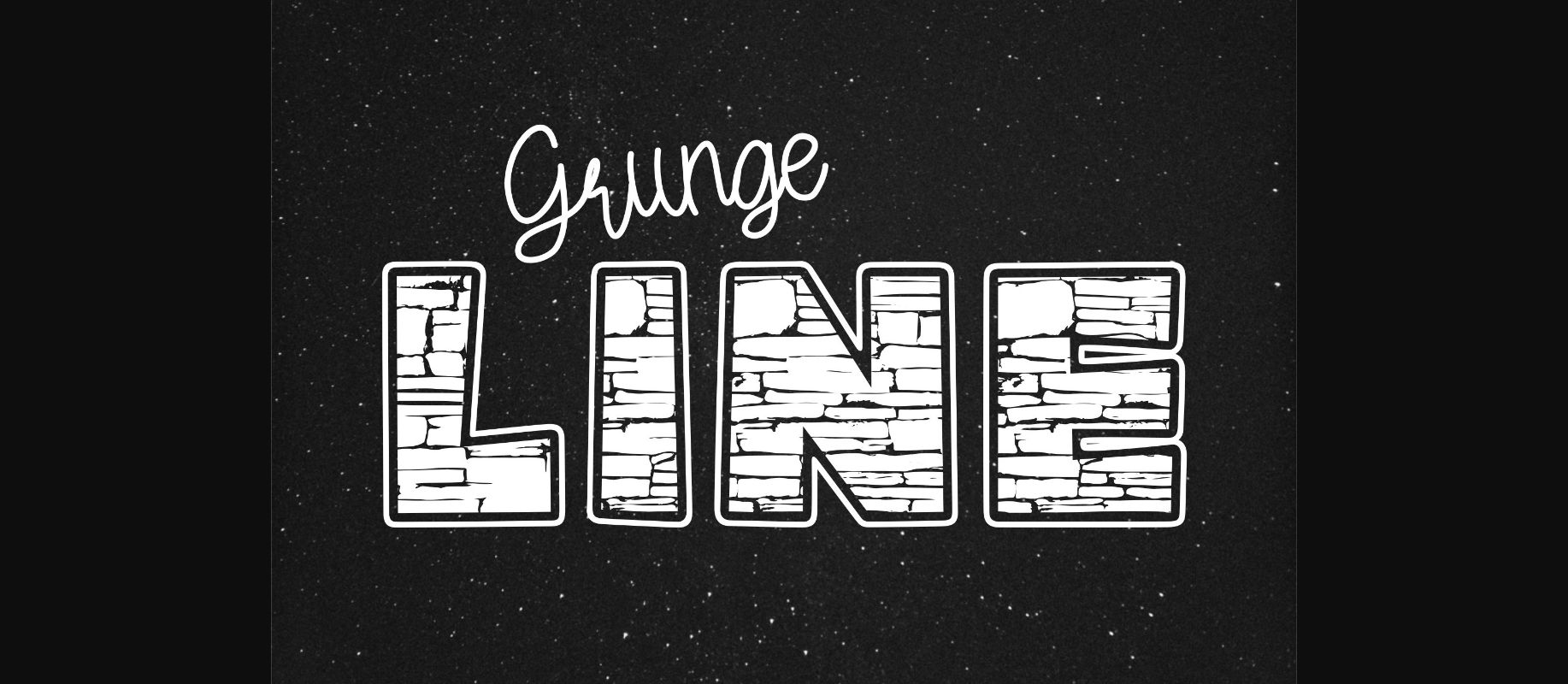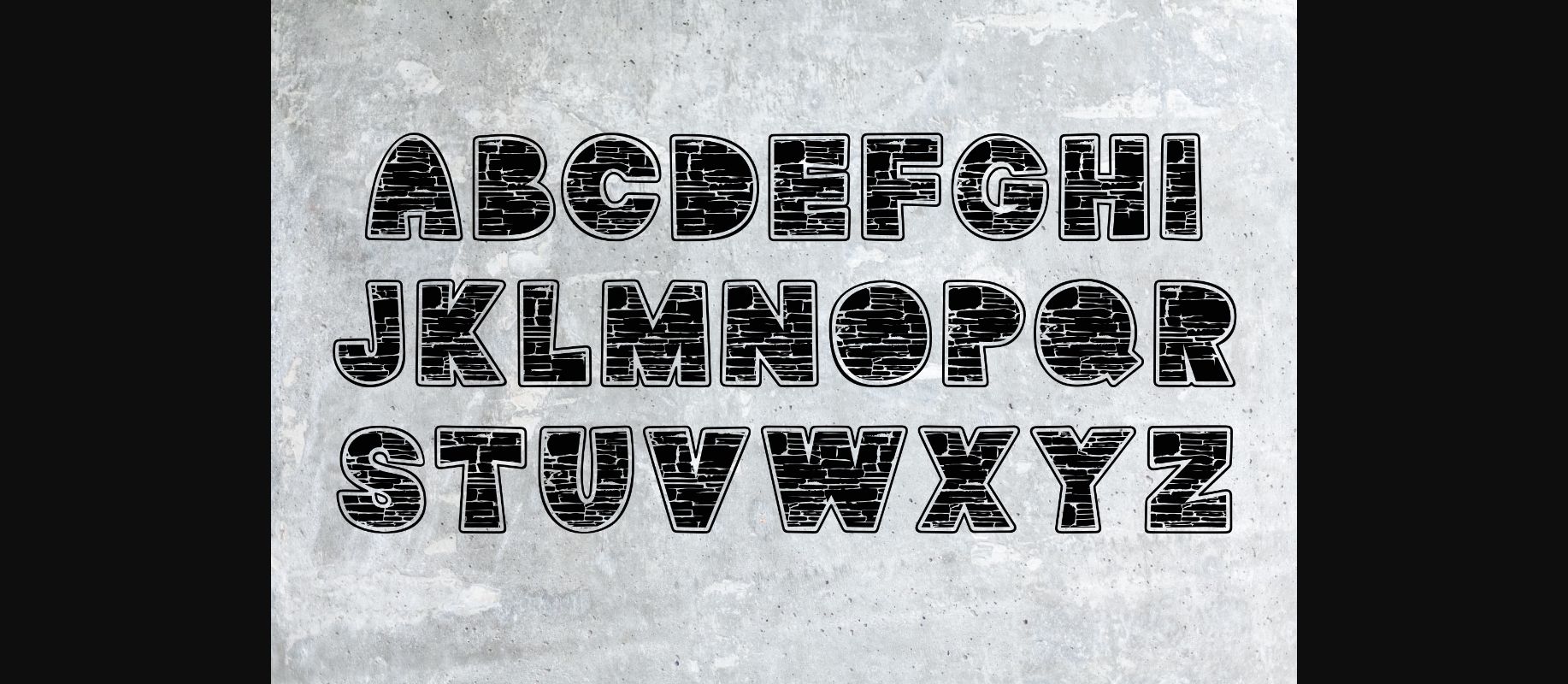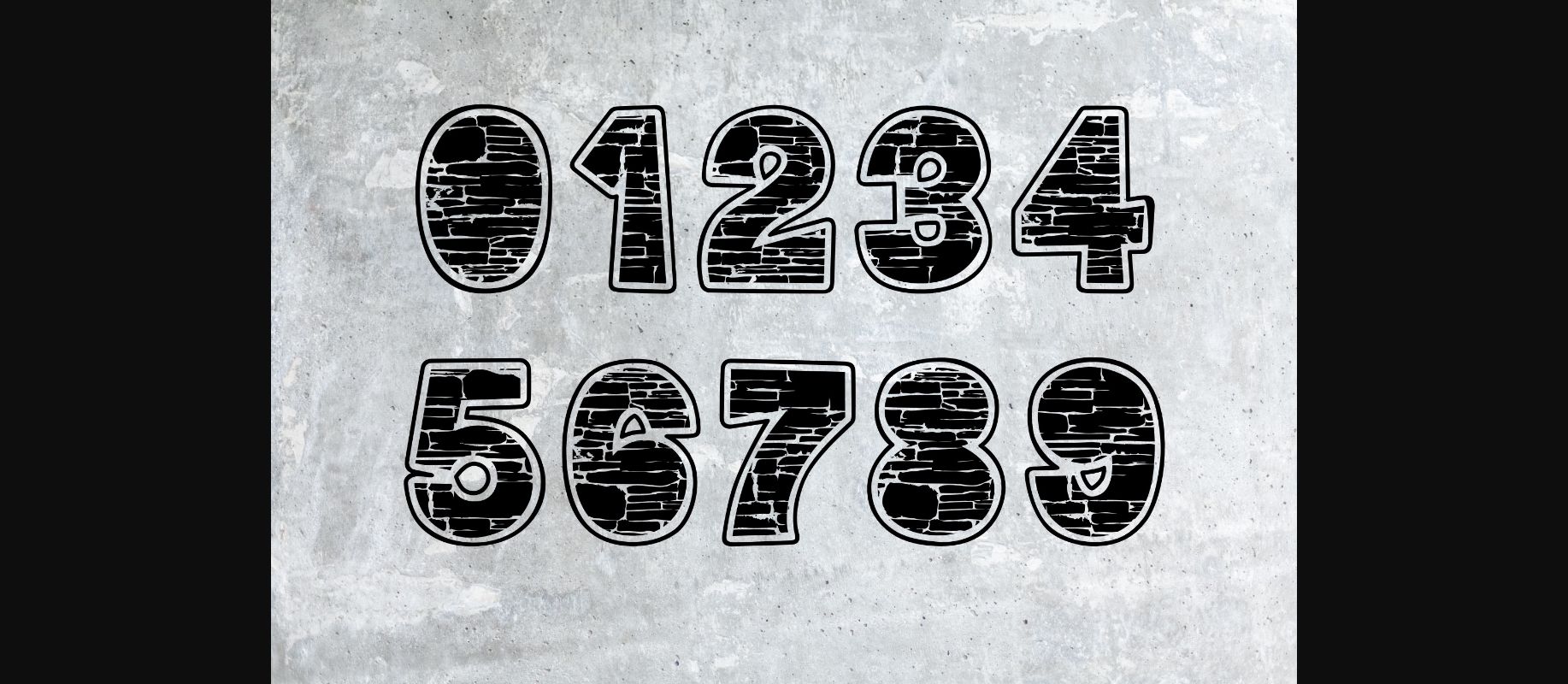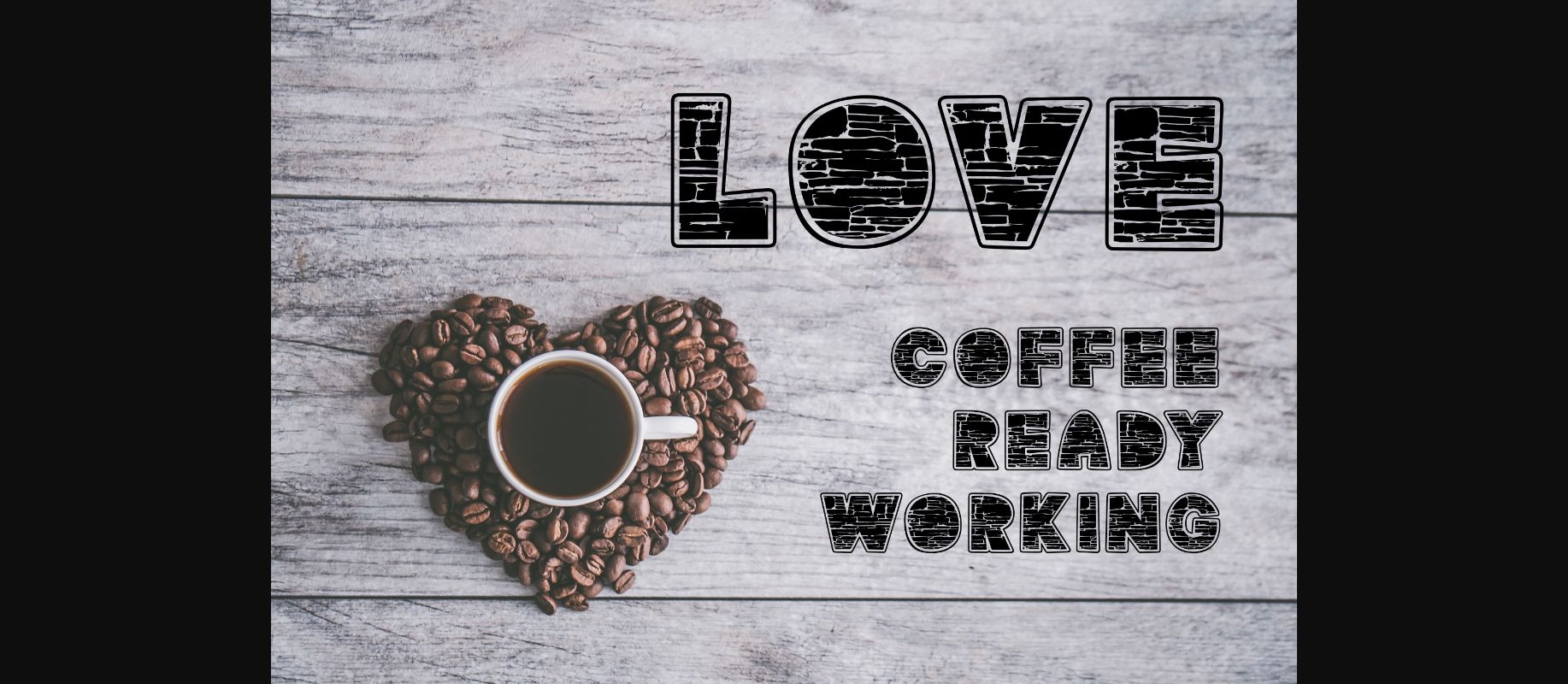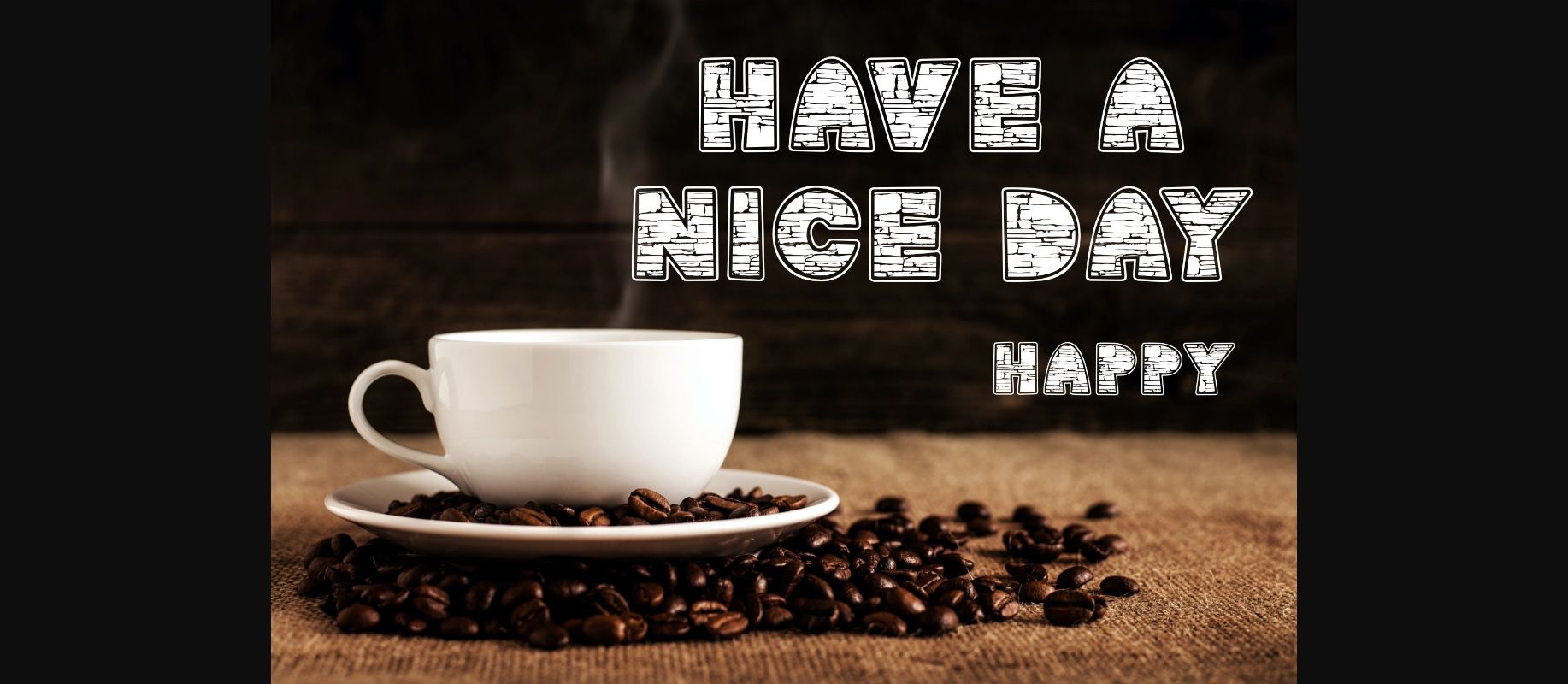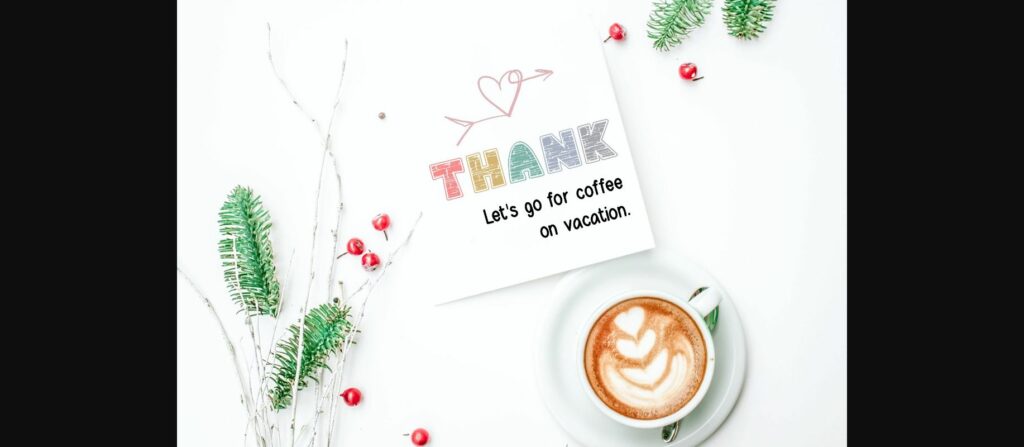
HomeDecorative FontsGrunge Line Font Decorative Fonts Grunge Line Font FacebookXPinterestWhatsApp 1 of 8 ... Grunge Line Font Poster 2... Grunge Line Font Poster 3... Grunge Line Font Poster 4... Grunge Line Font Poster 5... Grunge Line Font Poster 6... Grunge Line Font Poster 7... Grunge Line Font Poster 8... About Grunge Line Font Grunge Line is a decorative font. This font is the perfect fit for all of your logos, branding, social media, crafty DIY projects, and much more! DOWNLOAD NOW People also explored Russell Sutherland Font Haunted Cat Spider Font Qinder Butter Font Stretchy Pants Font Fall Vibes Font Kato Harveste Font Kian Santang Font Bakquila Font 332 0 TagsGrunge Line Font Previous articleBaby Rose FontNext articleButterfly Monogra Font LEAVE A REPLY Cancel reply Comment: Please enter your comment! Name:* Please enter your name here Email:* You have entered an incorrect email address! Please enter your email address here Website: Save my name, email, and website in this browser for the next time I comment. Personal Use Free Hearted Personal Use Free Read more about this font Eva Personal Use Free Read more about this font Cinderella Personal Use Free Read more about this font Love Ya Personal Use Free Read more about this font BLOG Elegant Wedding Invitation Fonts – Handwritten & Script Fonts Elegant Wedding Invitation Fonts Your wedding day is one of the most important moments of your life, and every detail matters—including your invitation design. Our... Best Fonts for YouTube Videos: Make Your Thumbnails Stand Out Top 7 Google Fonts Alternatives for Faster and Privacy-Friendly Web Design (2025) Where to Buy American Fonts Online in 2024